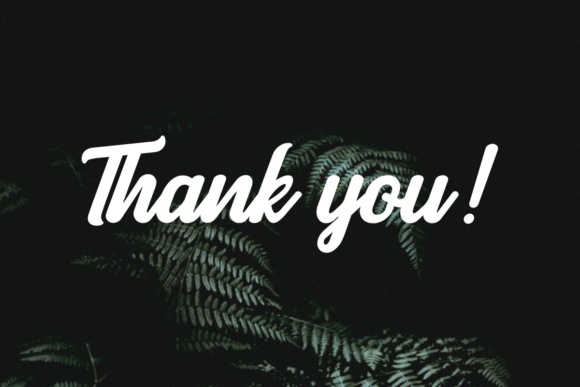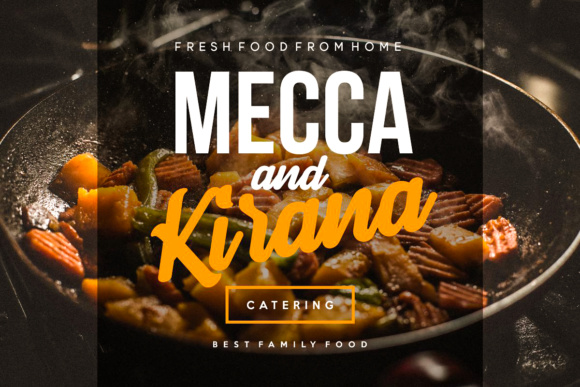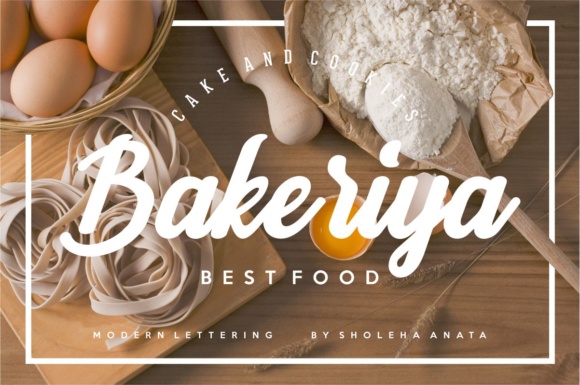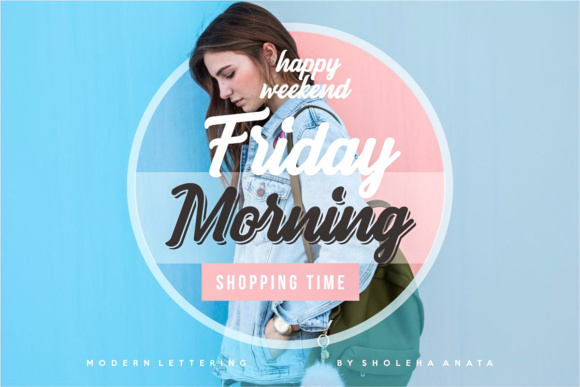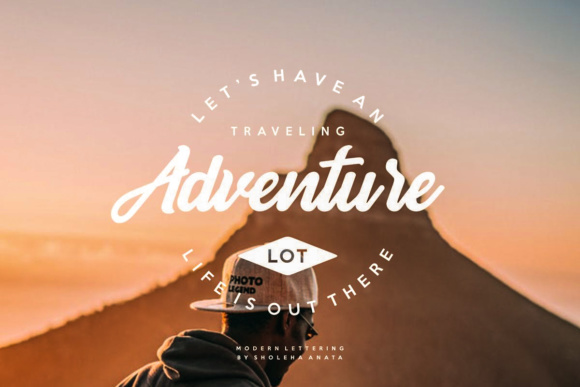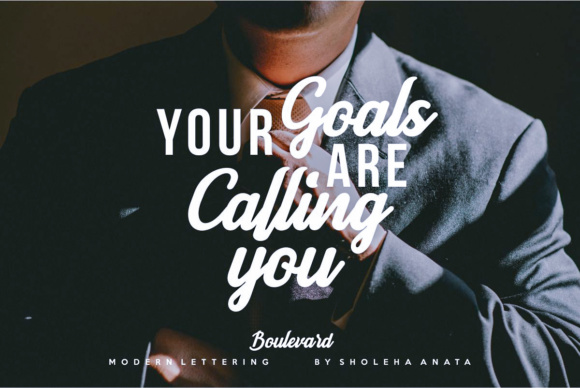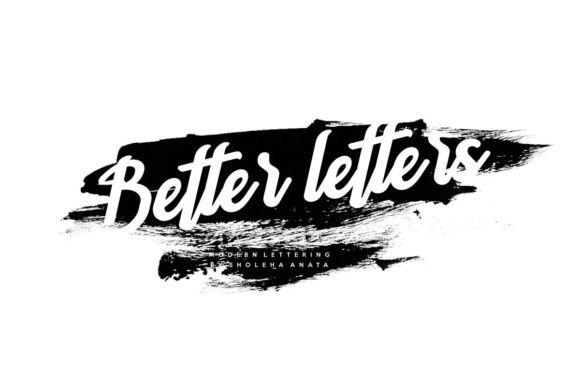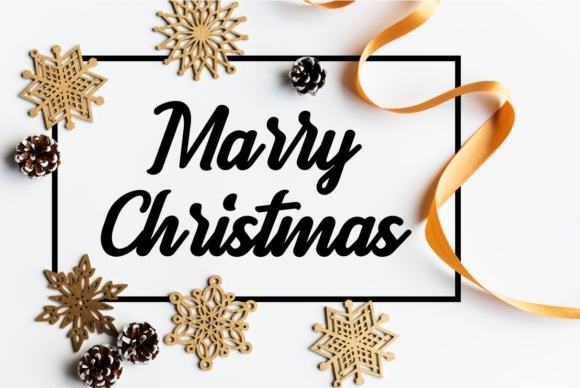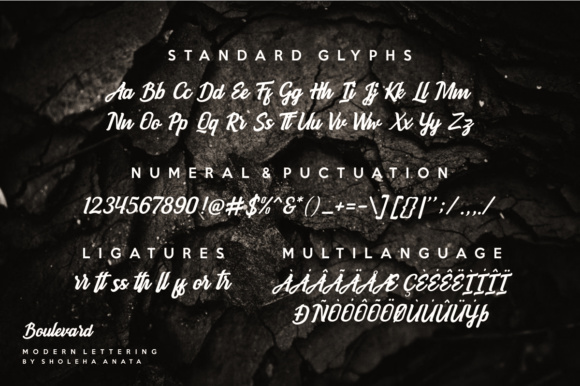
Boulevard Font
About Boulevard Font
The Boulevard is a fresh hand lettering script. It has a modern style and smooth and clean letters. It’s perfect for every design that needs a personal touch.